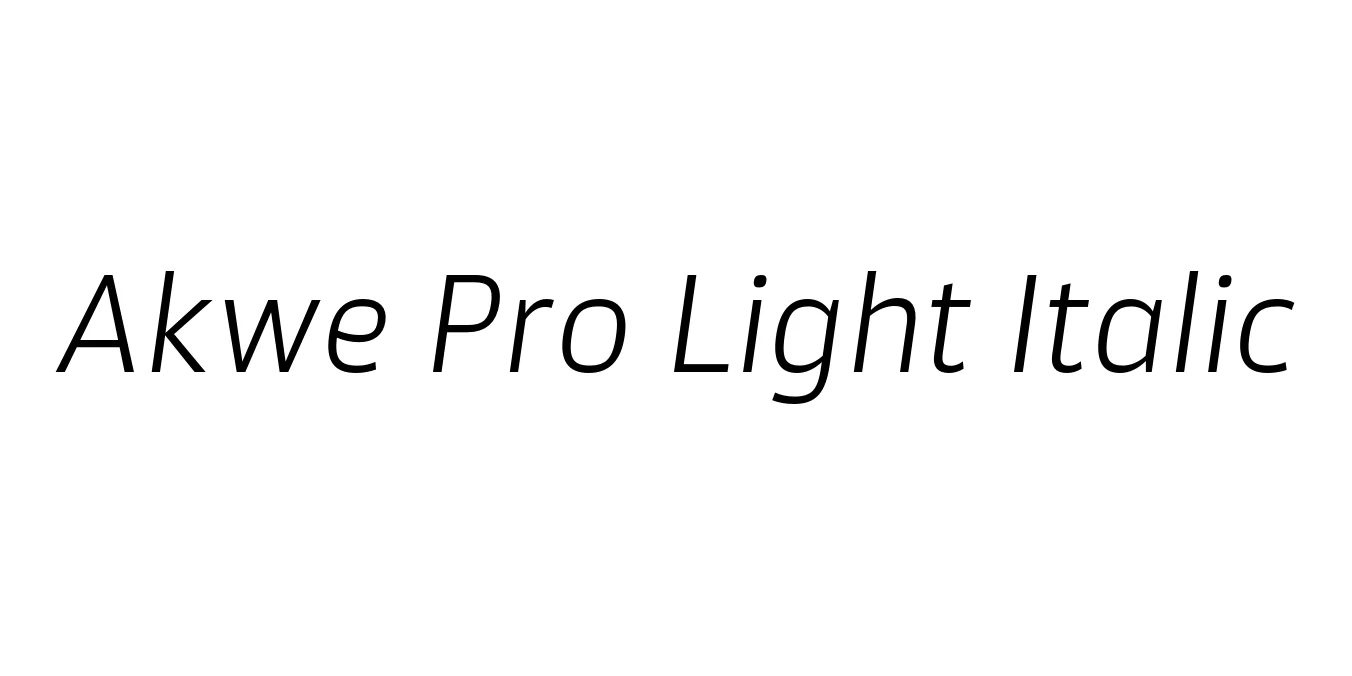
Akwe Pro Light Italic
Designed by Janusz Marian Nowacki
| Category | Humanist Sans Serif |
| Designer | Janusz Marian Nowacki |
| Similar Fonts | Frutiger, Myriad Pro, Lucida Sans, Syntax |
Akwe Pro Light Italic is a sophisticated humanist sans-serif typeface designed by the renowned Polish type designer Janusz Marian Nowacki. Part of the expansive Akwe Pro family, this specific weight and style strike a perfect balance between technical precision and organic warmth. The Light Italic variant is characterized by its slender strokes and elegant slant, which provides a sense of fluidity and modern professionalism to any typographic layout.
The design of Akwe Pro incorporates subtle geometric influences while maintaining the high legibility associated with humanist traditions. This makes it particularly effective for long-form reading in digital environments as well as high-resolution print applications. Its extensive character set and OpenType features allow for versatile usage across various languages and design disciplines, making it a reliable staple for designers seeking a clean, contemporary aesthetic.
Akwe Pro Light Italic Best Uses
Perfect for pull quotes, captions, and stylish subheaders in digital or print magazines.
Ideal for professional branding that requires a sophisticated and approachable tone.
Great for secondary interface text or accent typography in minimalist website designs.